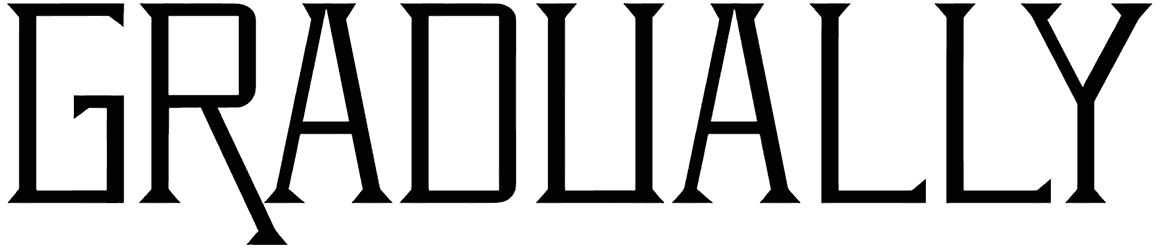
Gradually Font
To encourage people to be interested in your artwork, you can use a visionary font like Gradually. This is a serif font with long letters and spikes at the end of each line to create a very powerful and distinguished look that makes others wonder about the content.
You get this font with a collection of letters that lack the lowercase. You can use this masterpiece for fashion logos, business cards, perfume advertisements, and branding. Check us out.